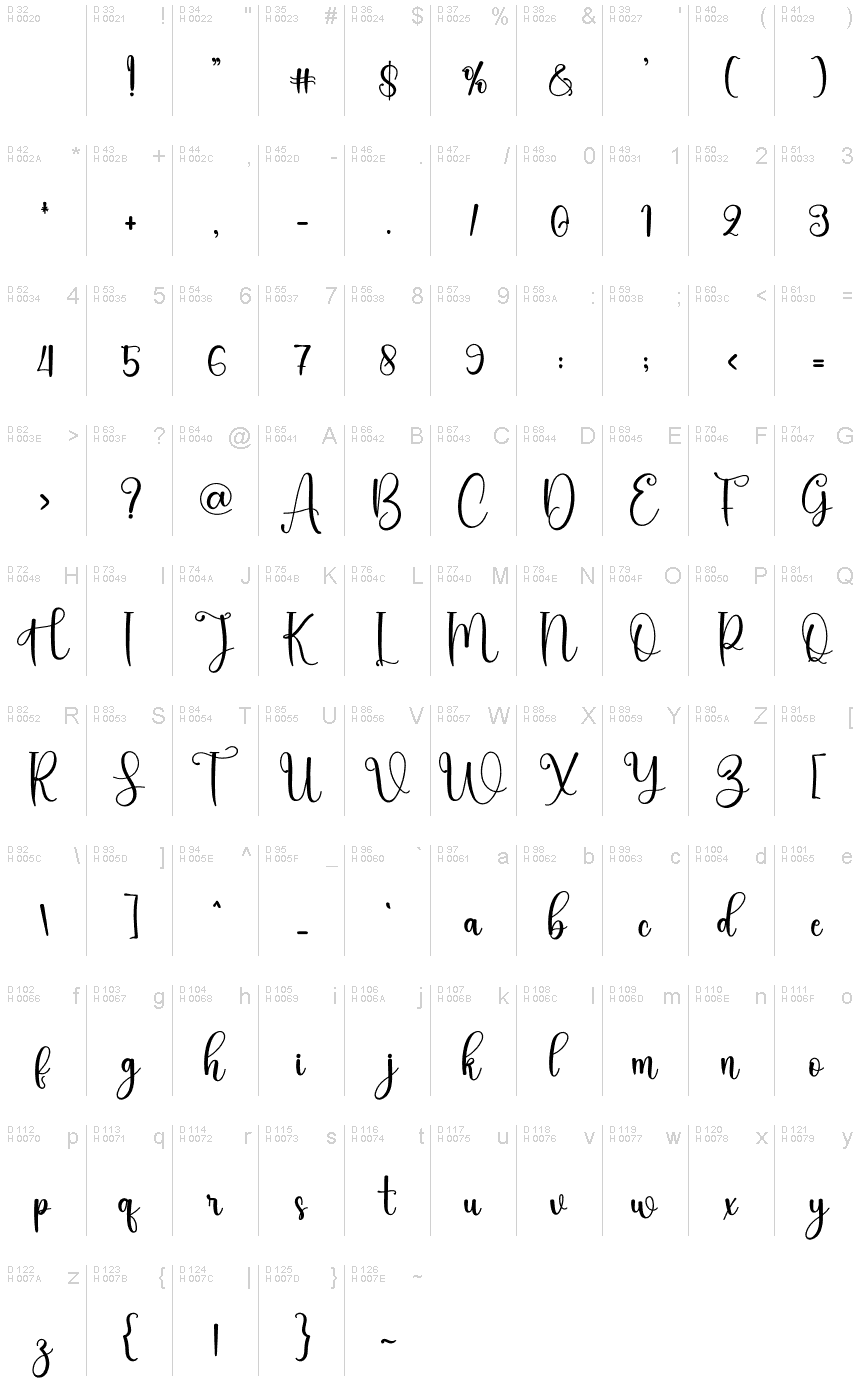
Dormitory
Dormitory, crafted by Inermedia Studio, is a captivating handwritten font that exudes a delightful charm. Its semi-light weight adds an elegant touch to any project. This versatile font is ideal for various creative endeavors, including wedding invitations, greeting cards, and personalized stationery. With its whimsical appeal and graceful strokes, Dormitory brings a sense of warmth to branding materials like logos and packaging designs. Whether you're working on a heartfelt blog post or designing an artful poster, this font will infuse your projects with an enchanting allure that captivates readers and viewers alike.